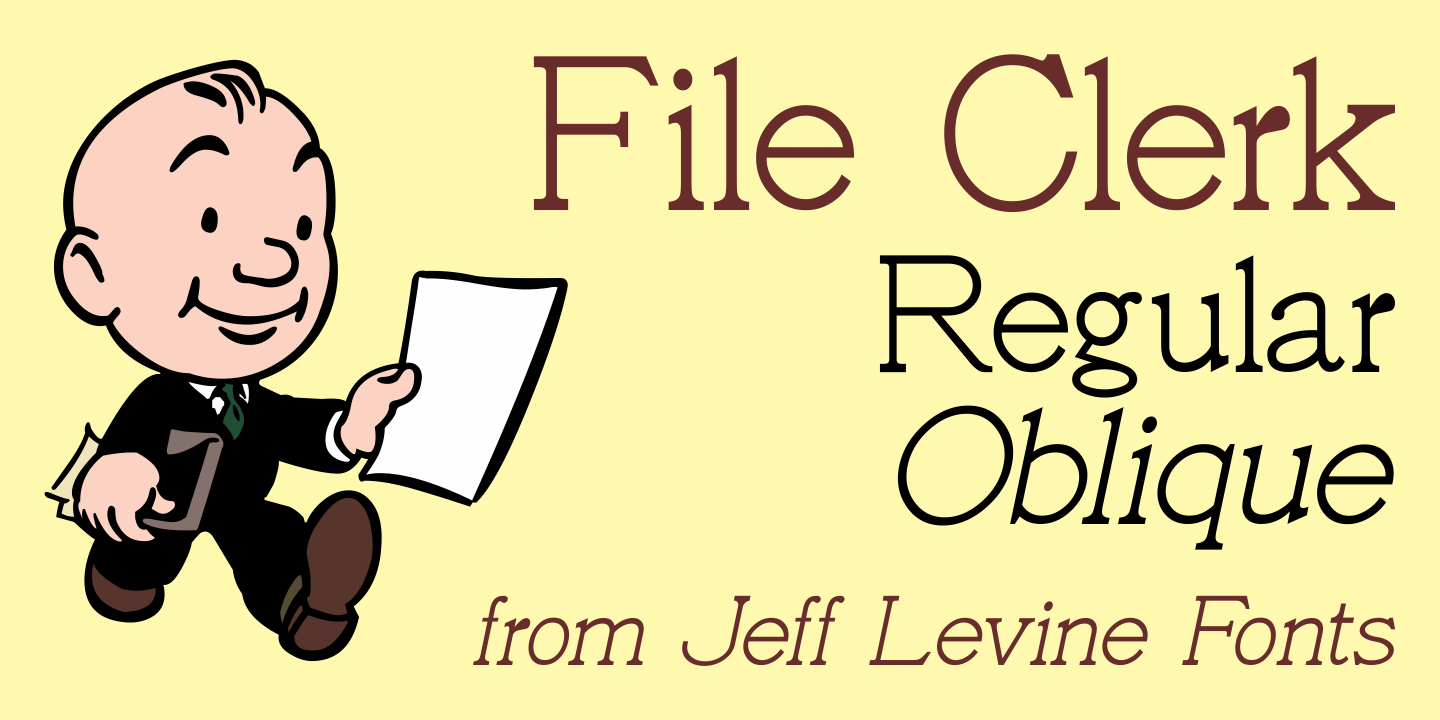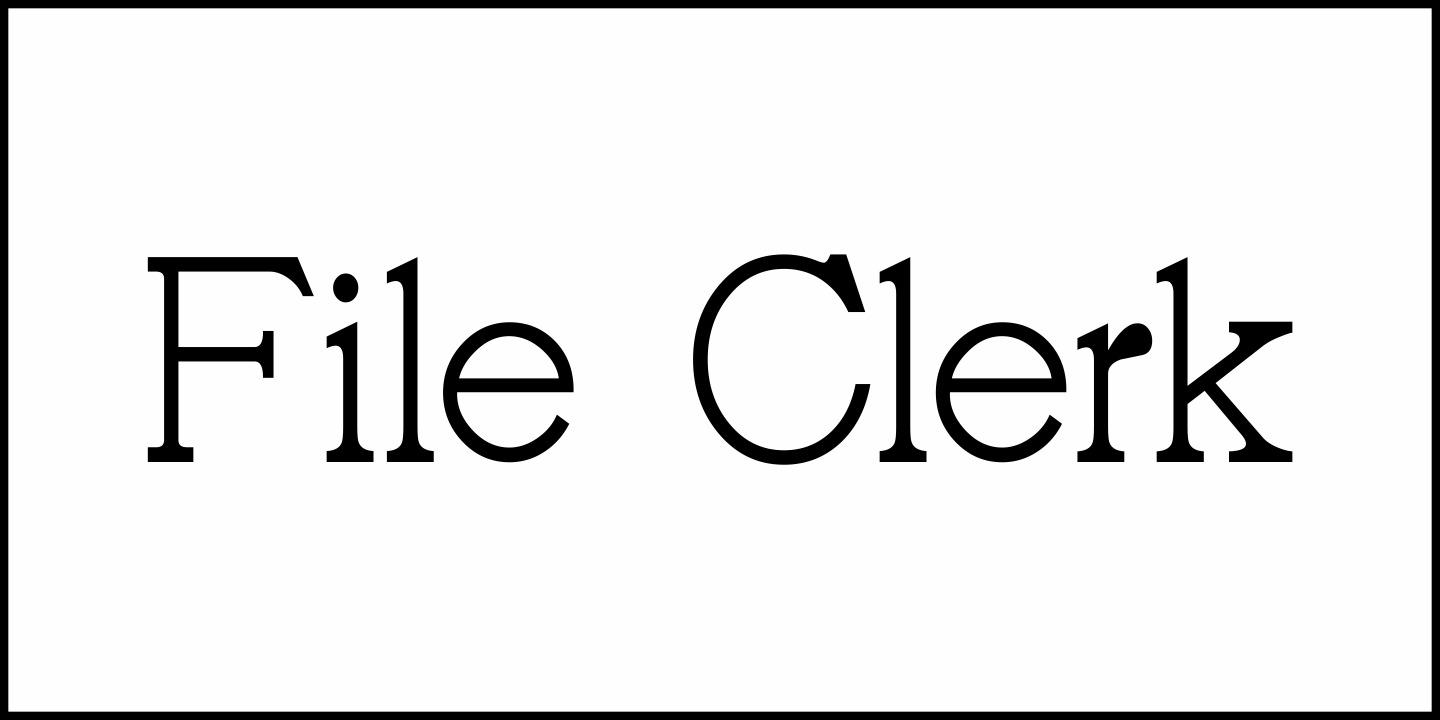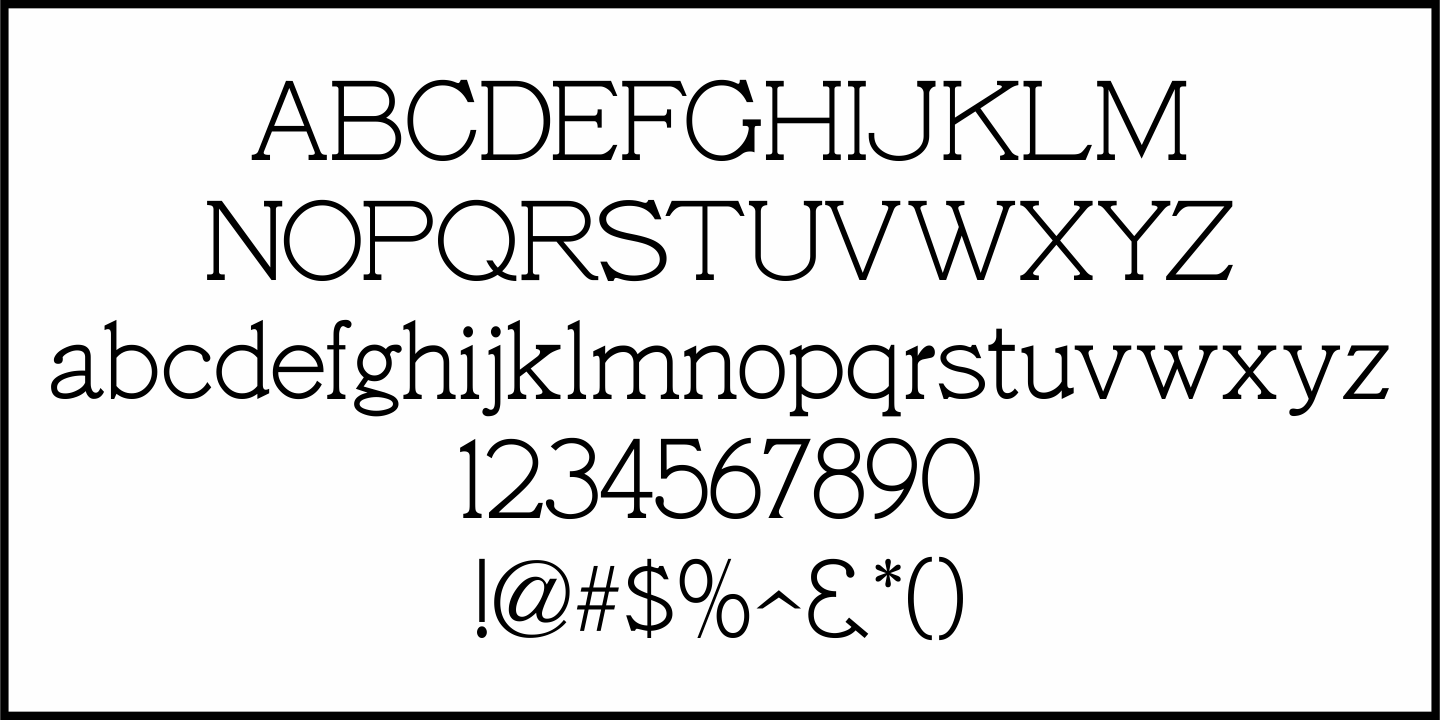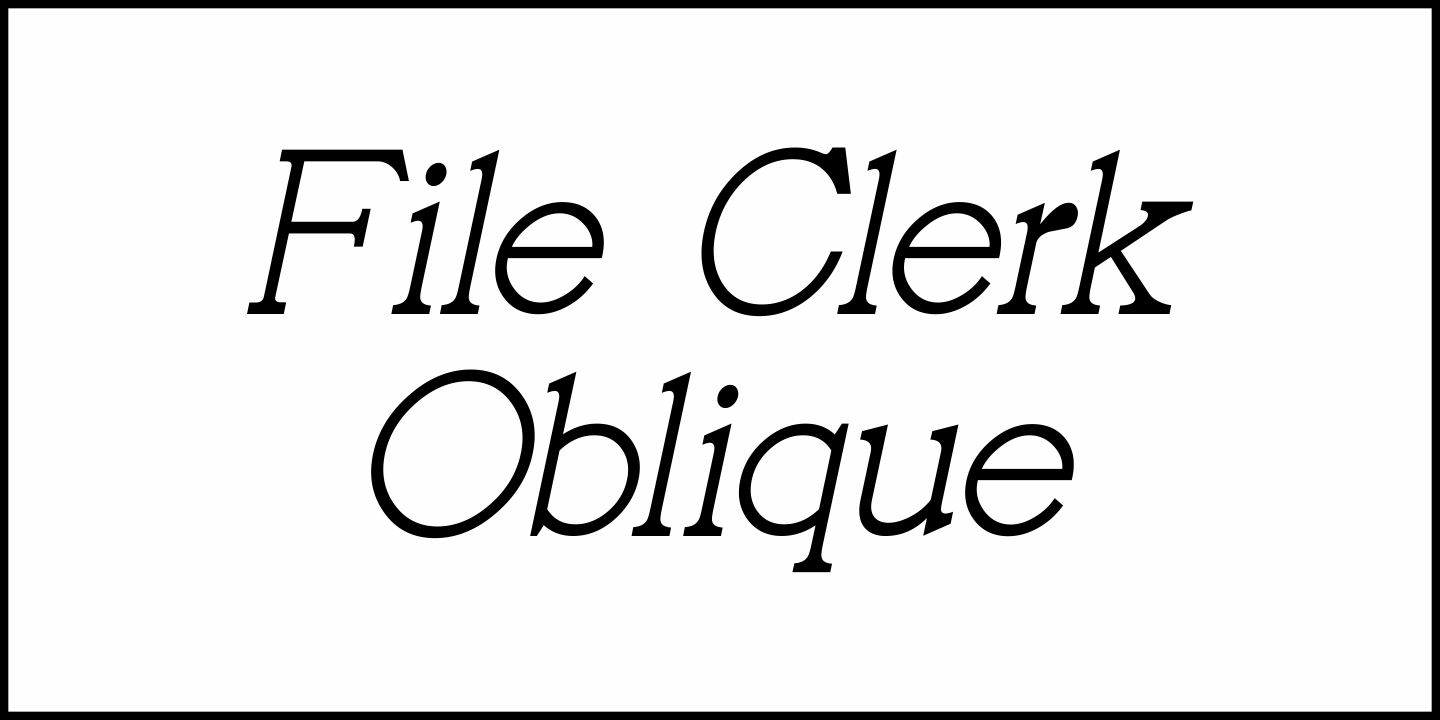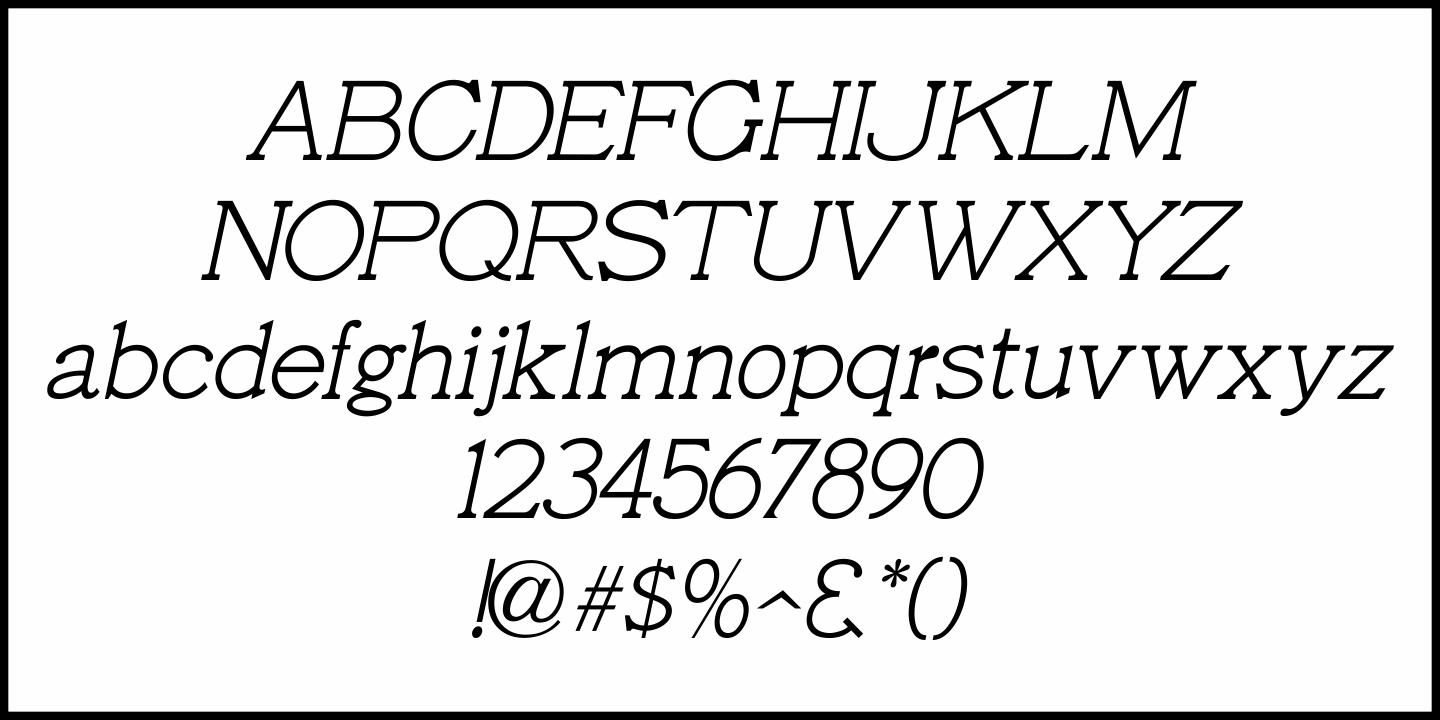
File Clerk
File Clerk JNL was based on Cushing, a typeface found within the pages of the 1901-02 Pettingill & Co. (Boston) specimen book, and is available in both regular and oblique versions.
File Clerk JNL Regular by Jeff Levine Fonts